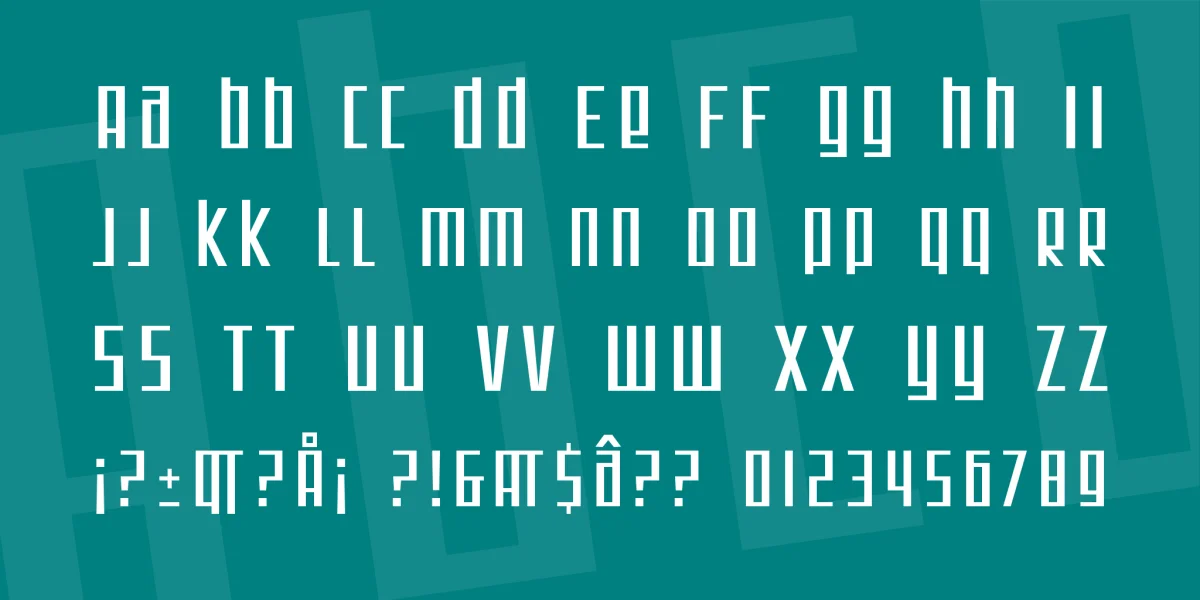
Yet another square typeface without any curves, SF Square Root contains lowercase and uppercase letters, numbers, punctuation, and accented characters.